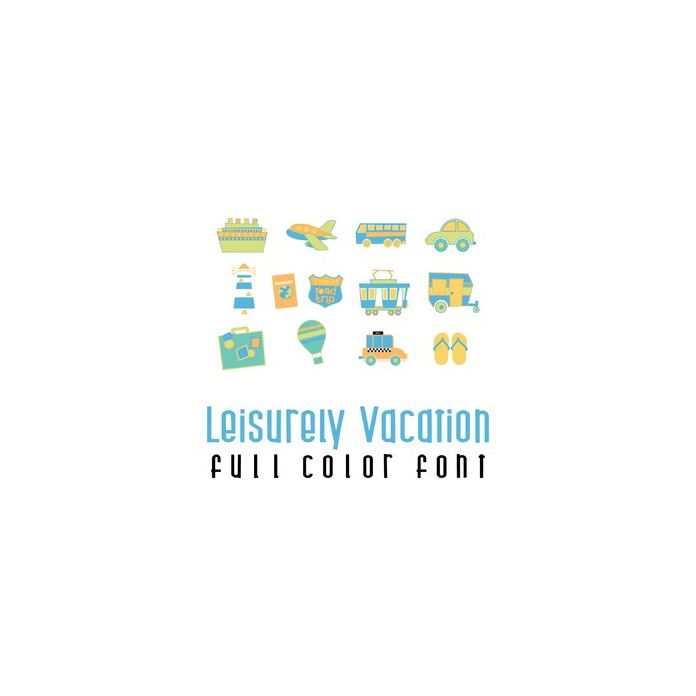
This adorable full color doodlebat font features 26 fun vacation/travel themed images. Perfect for cards, crafts, gifts, decor, scrap book pages, planner stickers and more!